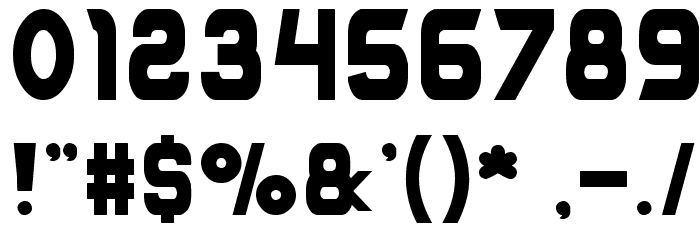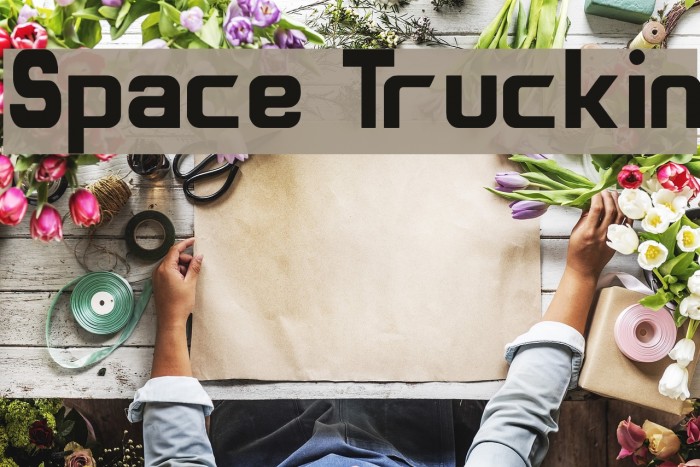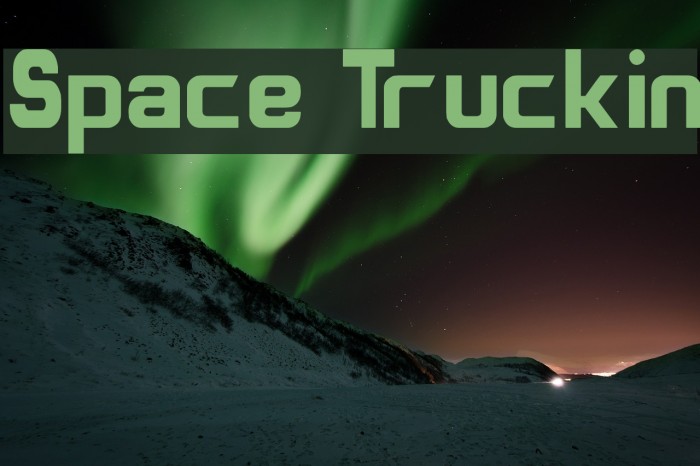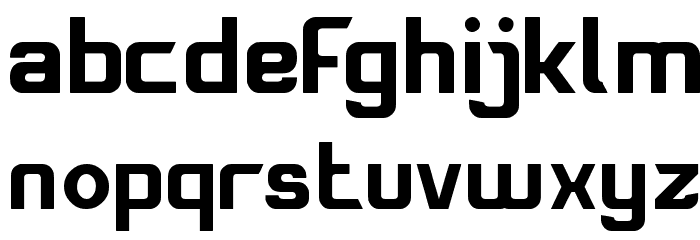
Space Truckin Font
Space Truckin Description
This font features a bold and futuristic design, characterized by its geometric and angular letterforms. The uppercase letters are particularly striking, with a strong presence and a unique style that suggests movement and innovation. The lowercase letters maintain the same geometric theme, offering a cohesive look across different text cases. Numbers and special characters are equally bold, ensuring consistency throughout. The font's design is reminiscent of science fiction and technology, making it ideal for projects that require a modern and edgy aesthetic.
| Proposed Projects | Ideal for sci-fi themed projects, technology branding, video game titles, and futuristic posters. |